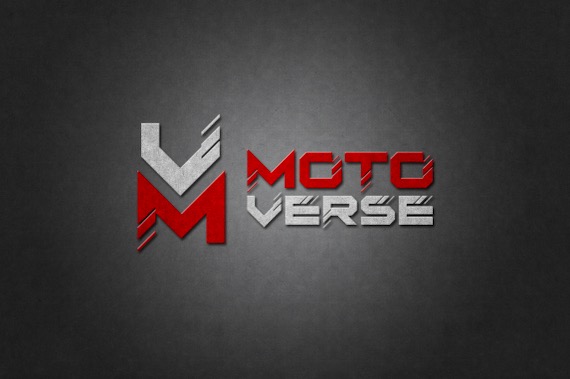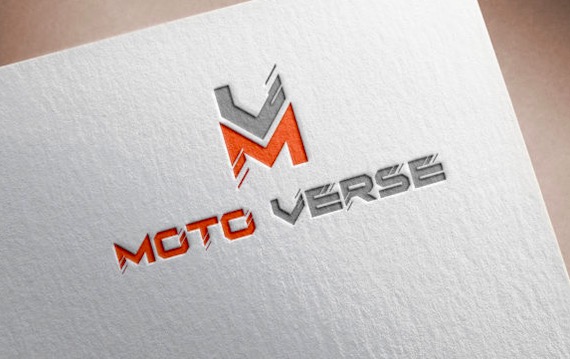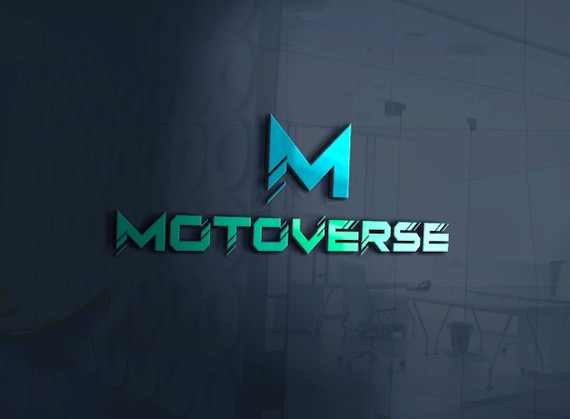
Moto Verse Font is a thick, strong lettered, and futuristic display typeface. It was created and shared by EyeCone. Besides, Moto Verse Font works incredibly well on logos, branding, or pretty much anything that requires a modern vibe.
Moto Verse Display Font